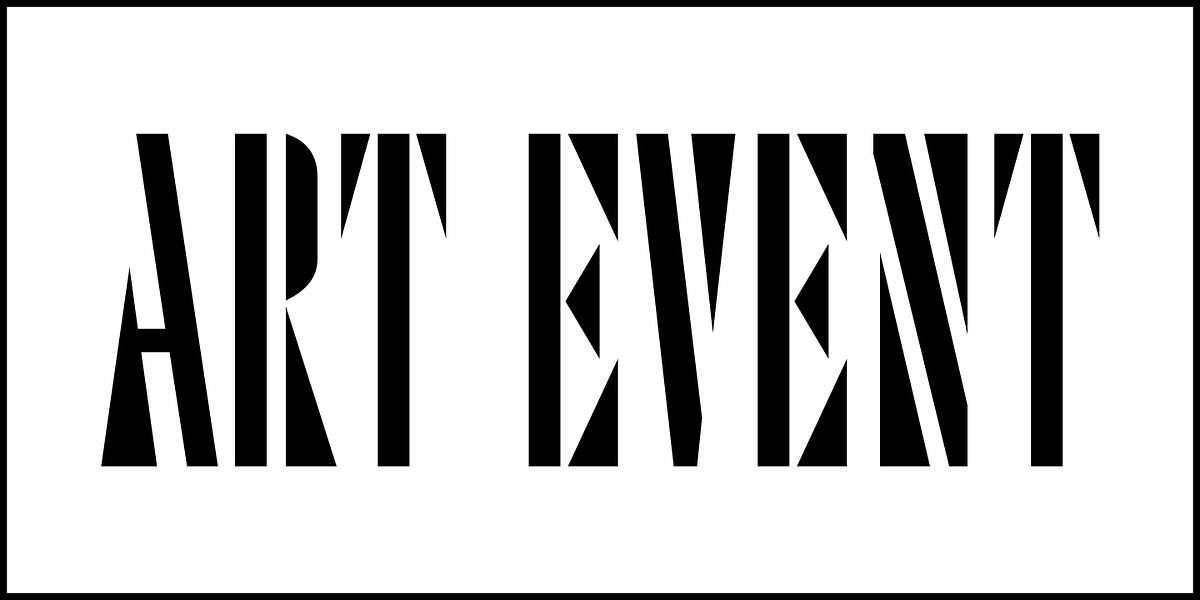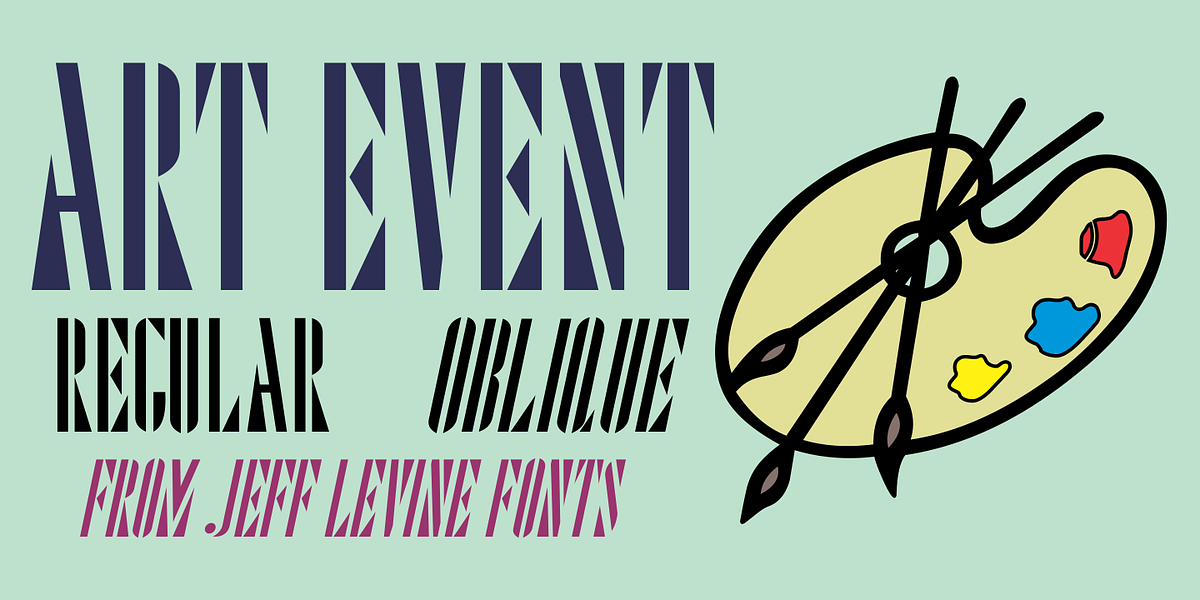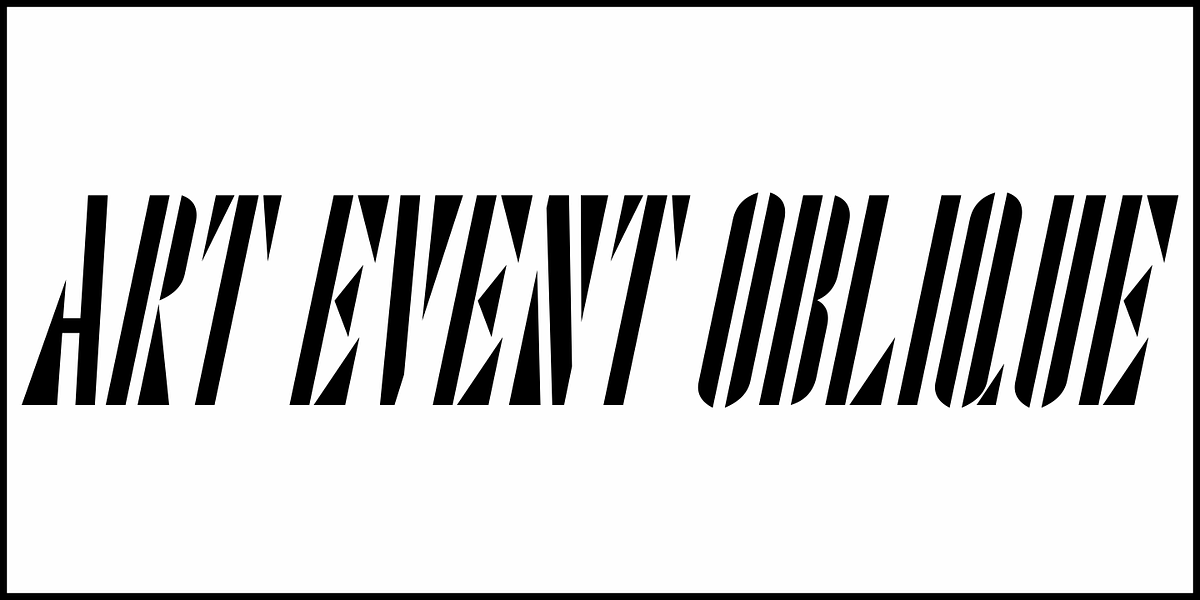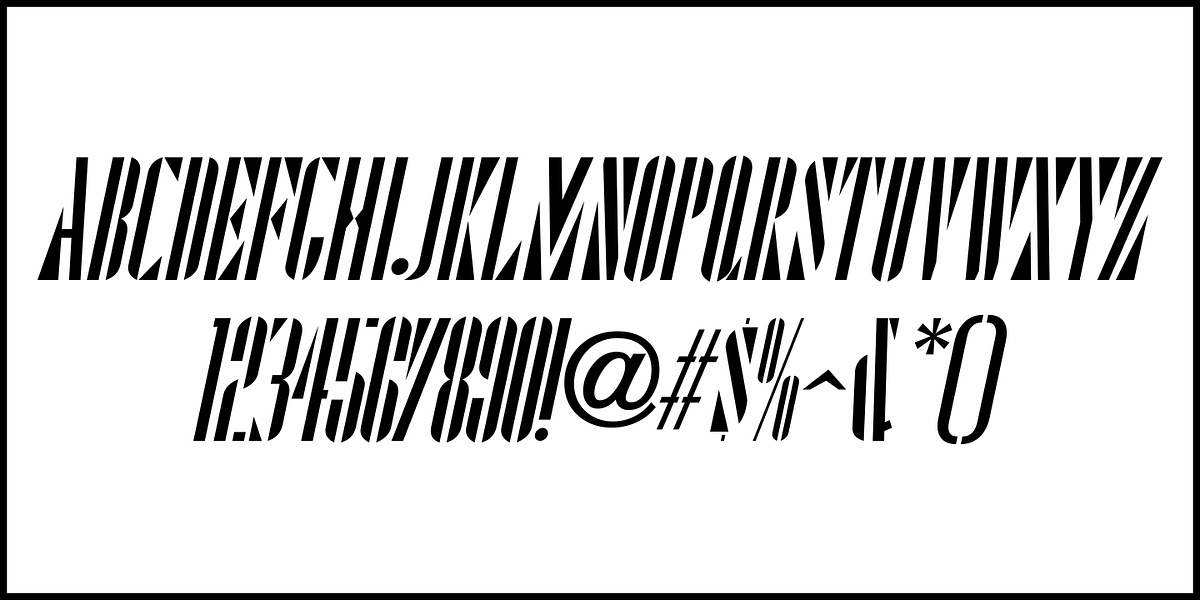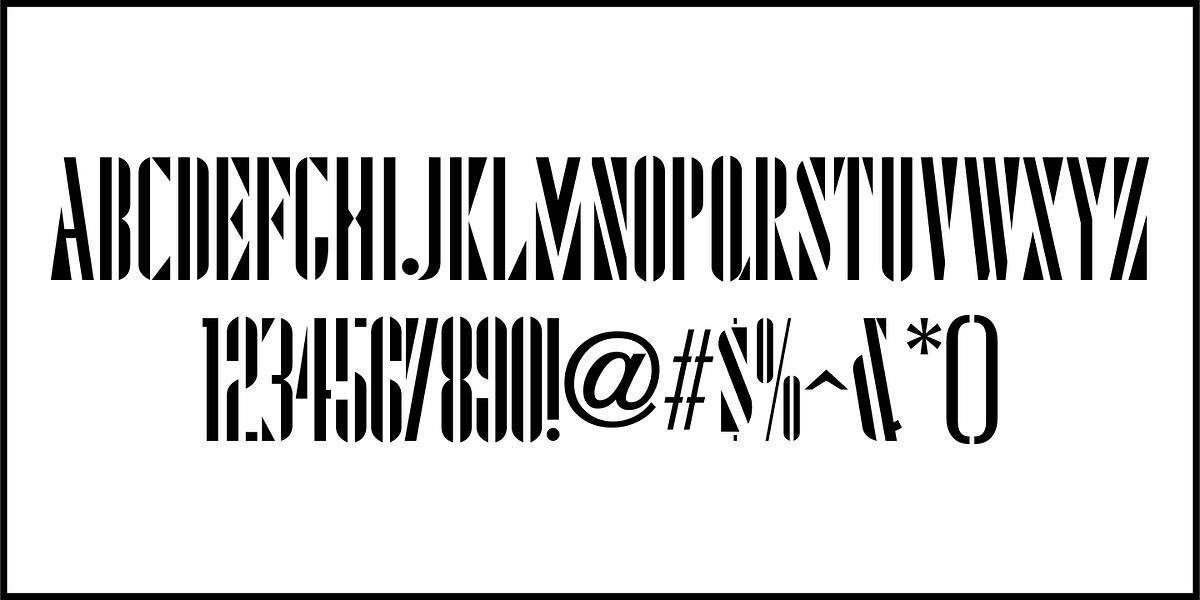
Art Event JNL
A 1930s WPA (Works Progress Administration) poster advertising an exhibit of New Jersey area posters had its main lettering rendered in a very condensed hand lettered interpretation of the ever-popular Futura Black Art Deco style.
This has now been re-drawn and digitized as Art Event JNL, in both regular and oblique versions.